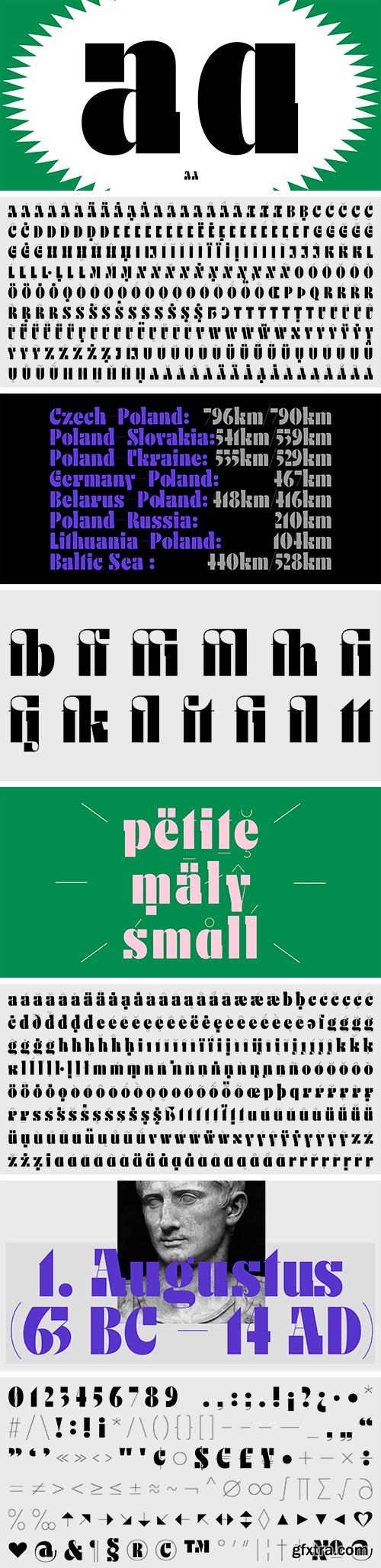
Hybryda Typeface
Hybryda is a display typeface – an offspring of Eklektyk. It combines letters categorised as both sans and slab serif, unified by high contrast. Combining retro feeling with contemporary approach Hybryda forms unique headlines for web, editorial and packaging design.